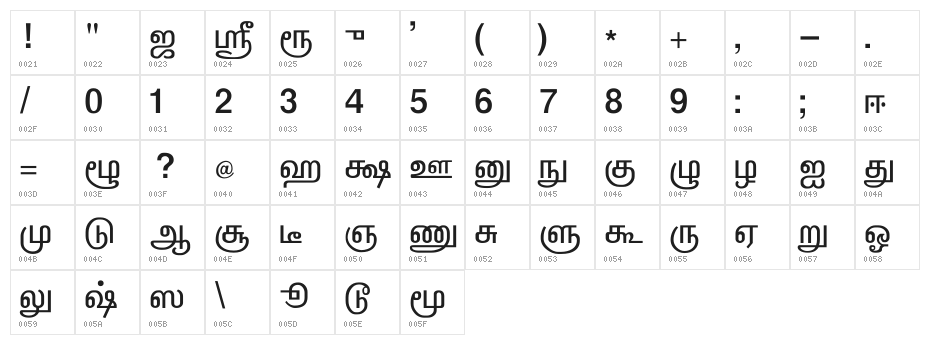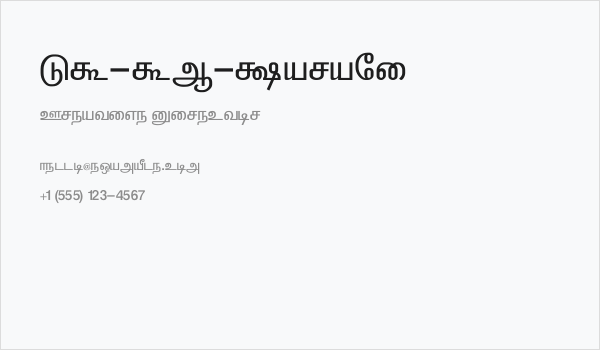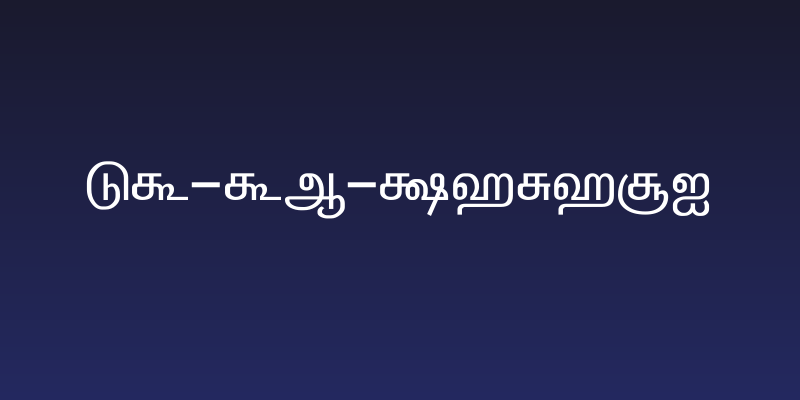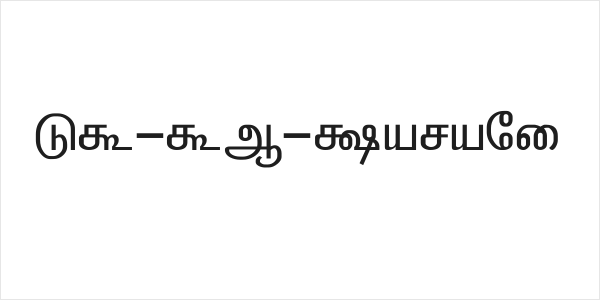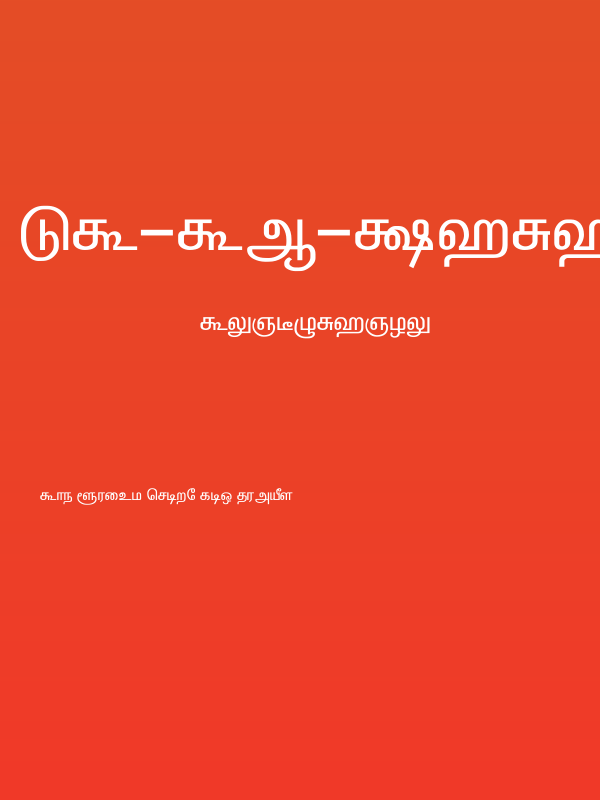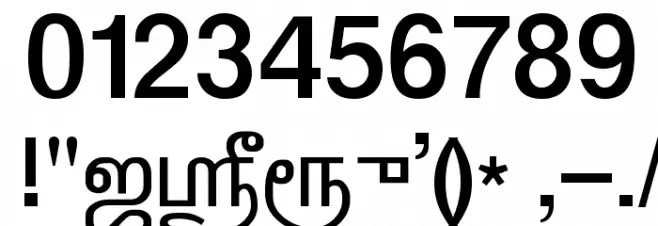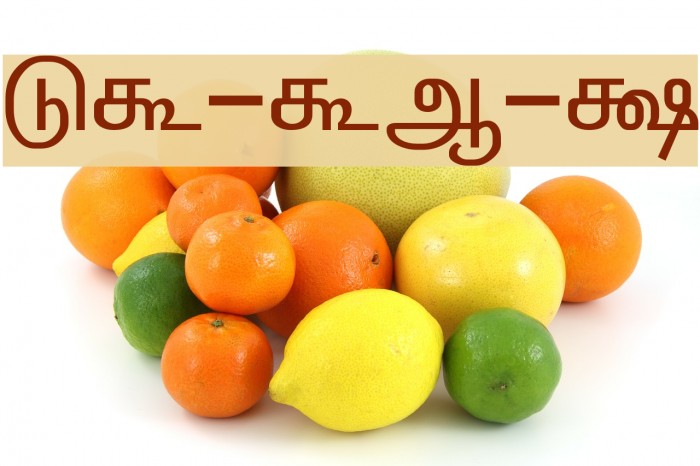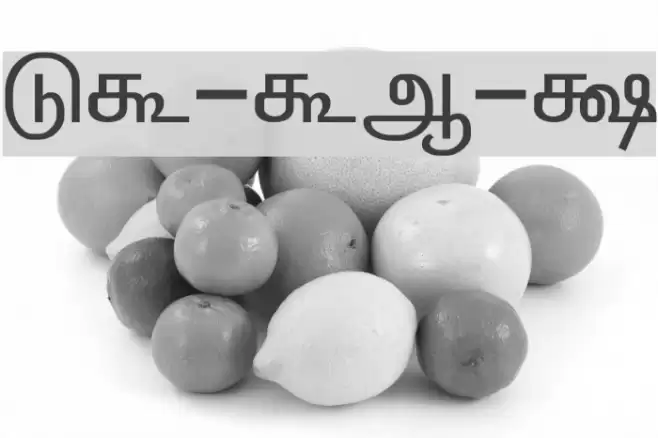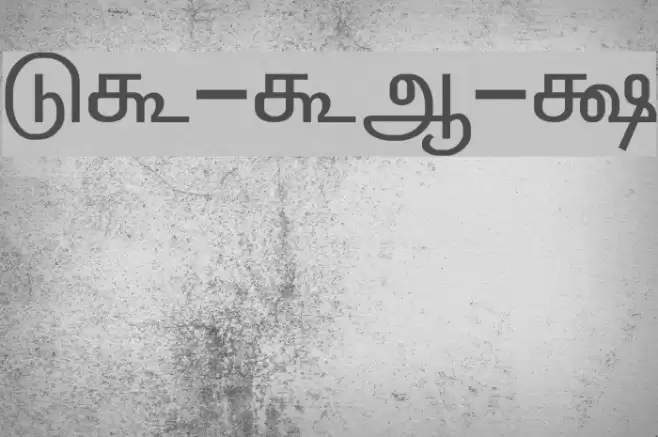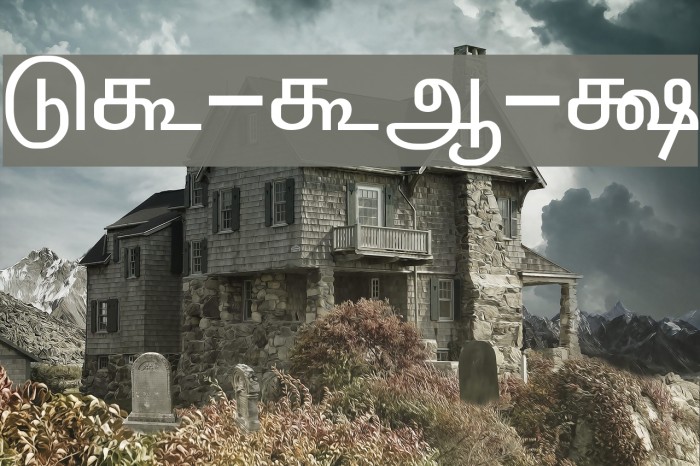
LT-TM-Barani Font
LT-TM-Barani Description
This font exhibits a clean and modern design with a focus on readability and clarity. The characters are well-defined with a consistent stroke width, providing a balanced and harmonious appearance. The numerals are bold and easily distinguishable, while the special characters are crafted with precision, ensuring they stand out without overpowering the text. The overall design is versatile, making it suitable for a variety of applications, from digital interfaces to print media.
| Use Case | Headlines, Body text, Logos |
| Proposed Projects | Ideal for digital interfaces, print media, branding, and signage due to its clarity and modern aesthetic. |